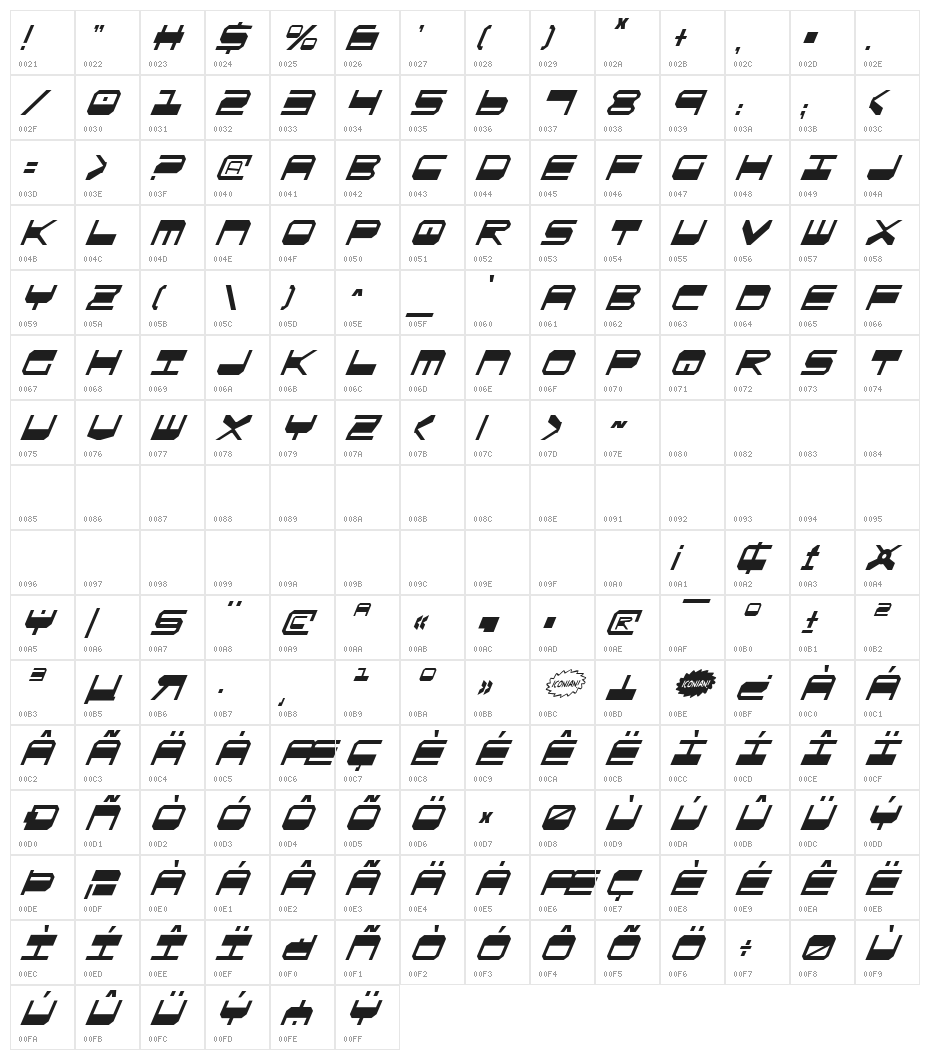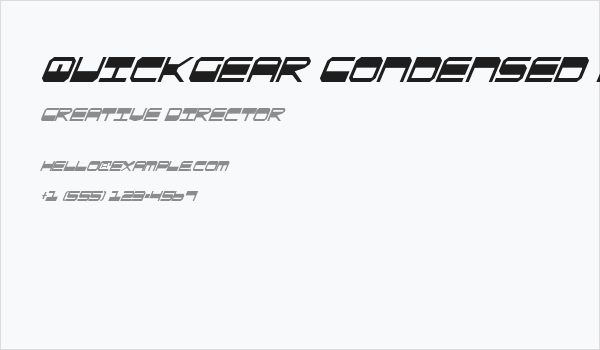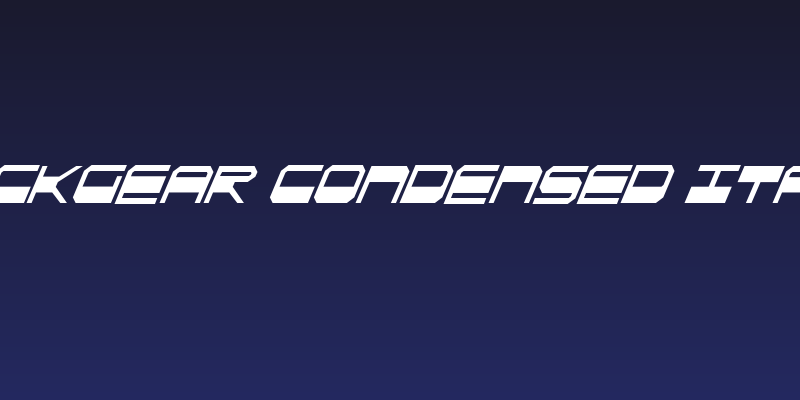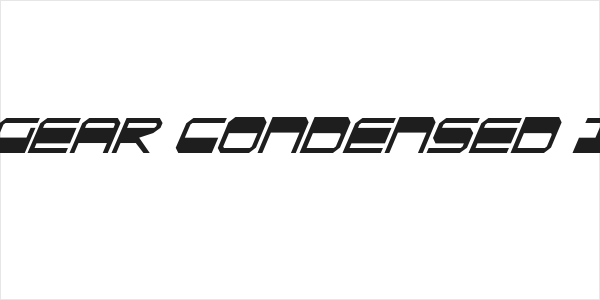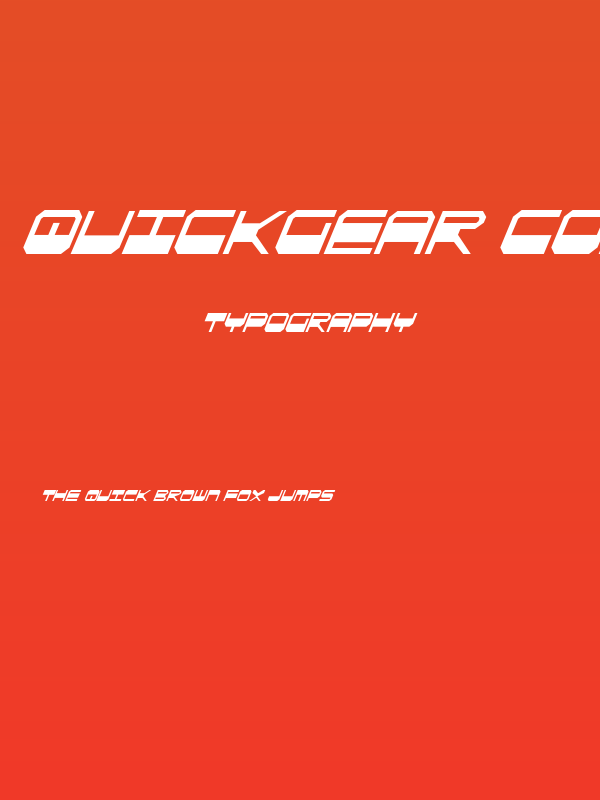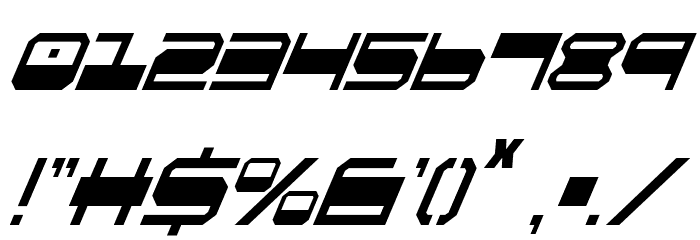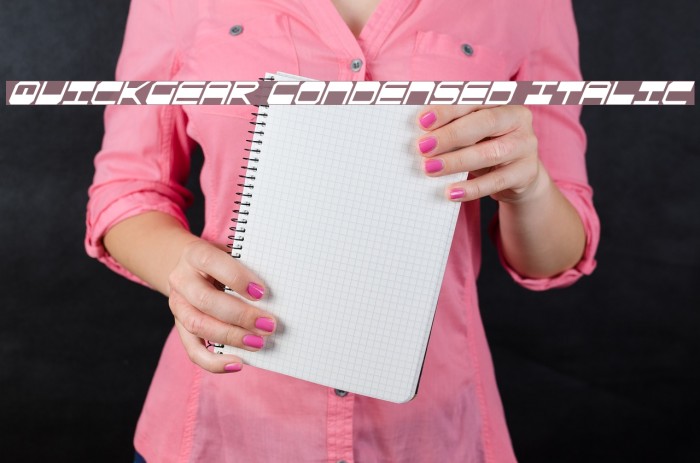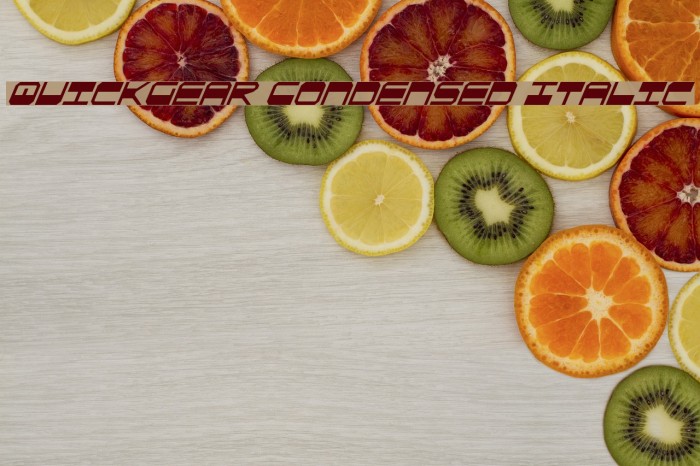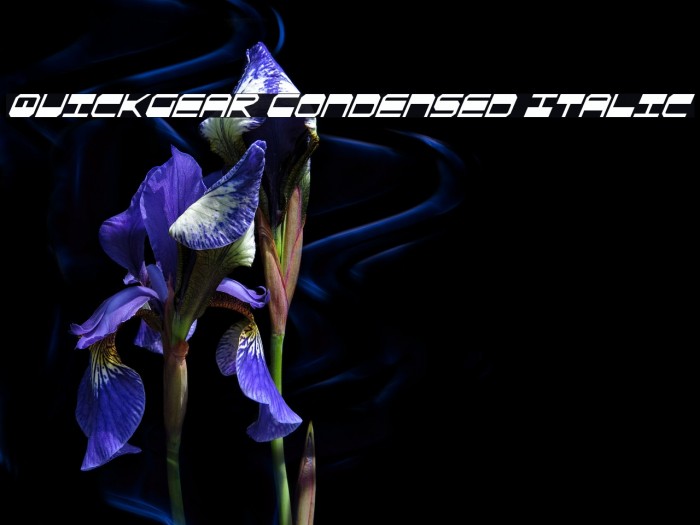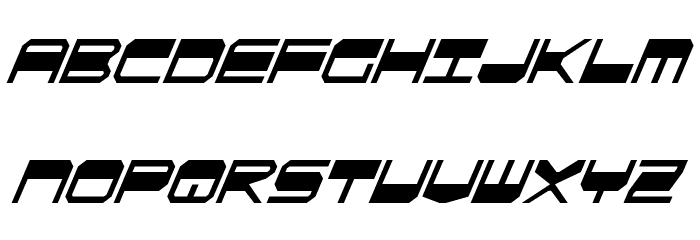
QuickGear Condensed Italic Font
QuickGear Condensed Italic Description
This font features a futuristic and dynamic design with sharp, angular edges and a forward-leaning italic style. The condensed nature of the characters gives it a sleek and compact appearance, making it ideal for modern and high-tech themes. The uppercase and lowercase letters maintain a consistent geometric structure, while the numbers and special characters follow the same angular motif, adding to the overall cohesive look. The font's boldness and unique style make it stand out, perfect for projects that require a strong visual impact.
| Proposed Projects | Ideal for technology branding, sci-fi posters, video game titles, and automotive advertisements. |